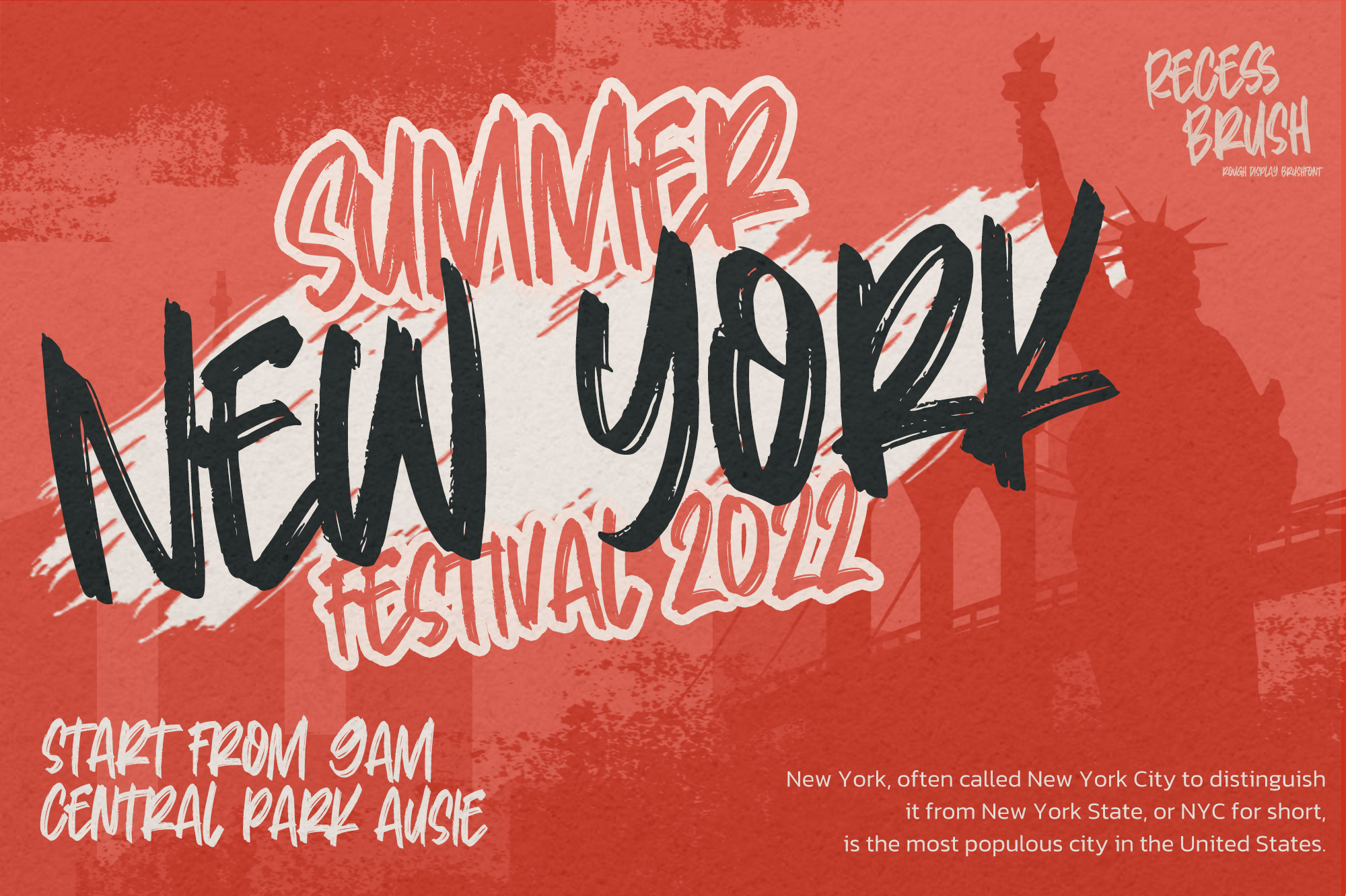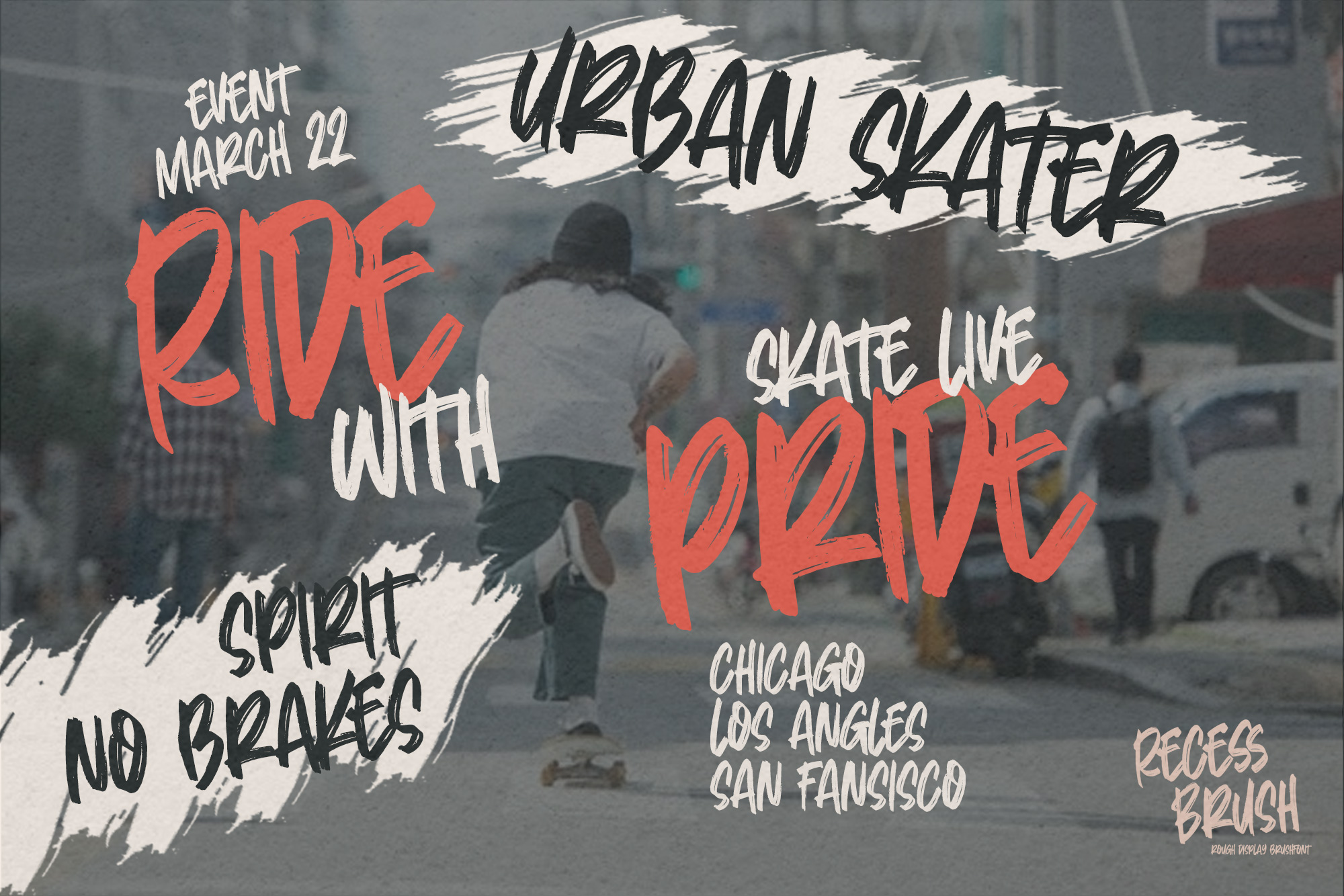
Recess Brush – Rough Display Brush Font, modern style and dramatic movement that is written casually and quickly.
The best for labels,poster,project , designs look modern, authentic and fun. It’s perfect for labels, quotes, posters, DIY projects, branding, packaging, greeting cards, websites, photography overlays, signs, scrapbooking, tags and so much more! That is why Recess Brush has a brush, and strong characteristic more natural look. You can activate Ligatures OpenType panel.